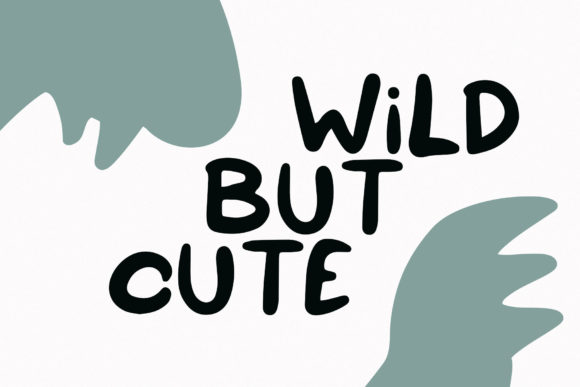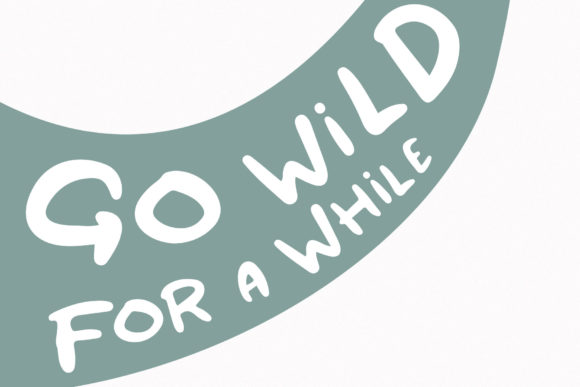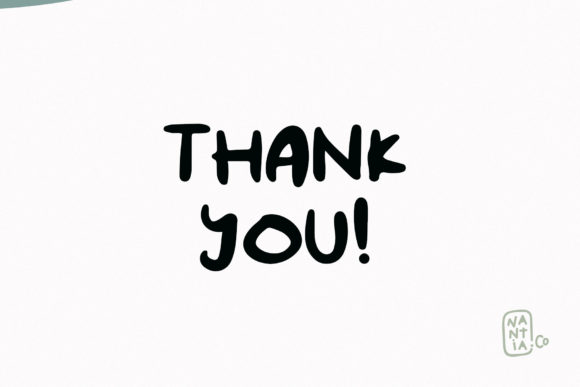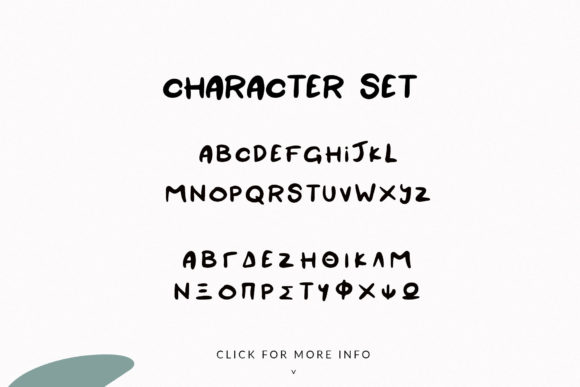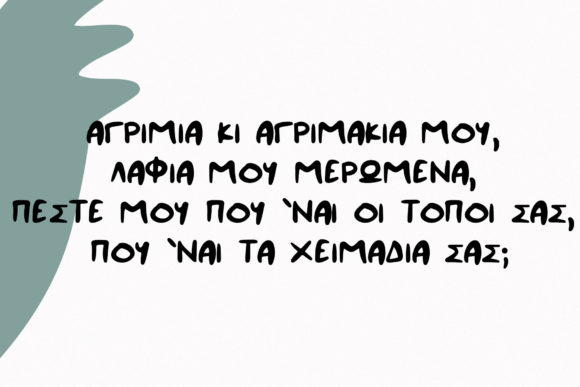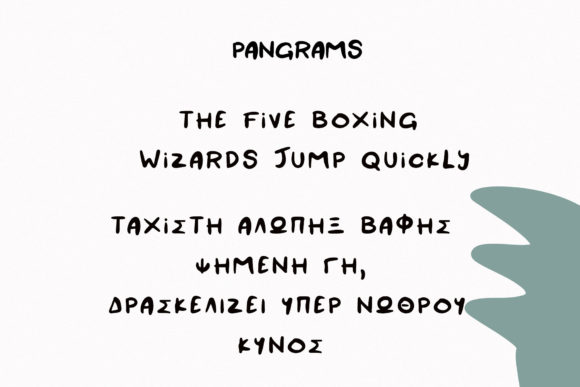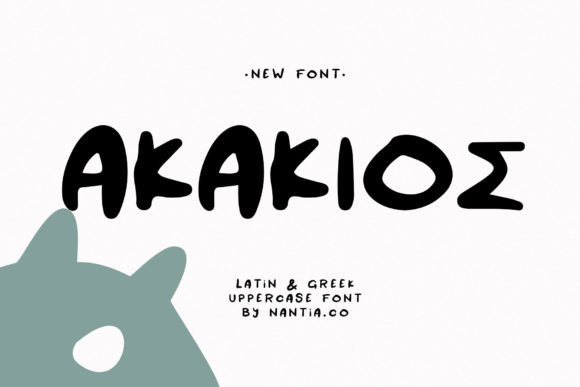
Introducing Akakio Font: The Perfect Blend of Power and Cuteness
Are you tired of using the same old fonts in your design projects? Look no further! Akakio Font is here to revolutionize the way you approach typography. This handwritten font is a game-changer, offering a unique blend of power and cuteness that will instantly elevate your designs to the next level. In this article, we’ll dive into the world of Akakio Font, exploring its features, benefits, and uses, as well as provide tips and inspiration for designers and crafters.
What is Akakio Font?
Akakio Font is a modern, handwritten font that exudes a sense of coolness and sophistication. Its unique charm lies in its ability to balance power and cuteness, making it an ideal choice for designers and crafters looking to add a touch of personality to their work. Whether you’re creating a logo, branding materials, or social media graphics, Akakio Font is the perfect tool to make your designs stand out.
Key Features of Akakio Font
• Handwritten style: Akakio Font boasts a beautiful, handwritten style that adds a personal touch to any design project.
• Modern and cool vibe: This font is designed to give your designs a modern and cool edge, making it perfect for brands and businesses looking to appeal to a younger audience.
• Versatile: Akakio Font is incredibly versatile, making it suitable for a wide range of design projects, from logos and branding materials to social media graphics and more.
• Easily readable: Despite its unique style, Akakio Font is easily readable, ensuring that your message is conveyed clearly and effectively.
Benefits of Using Akakio Font
So, why should you choose Akakio Font for your design projects? Here are just a few benefits of using this amazing font:
• Stand out from the crowd: With Akakio Font, you can create designs that truly stand out from the crowd. Its unique style and modern vibe will set your brand or business apart from the competition.
• Emotional connection: Handwritten fonts like Akakio Font have the power to create an emotional connection with your audience. By using this font, you can add a personal touch to your designs and build a stronger relationship with your customers.
• Flexibility: Akakio Font is incredibly flexible, making it suitable for a wide range of design projects and applications.
Tips for Using Akakio Font
Now that you know more about Akakio Font, here are some tips for using it effectively in your design projects:
• Pair with bold colors: Akakio Font looks amazing when paired with bold, bright colors. Experiment with different color combinations to find the perfect match for your design.
• Use in combination with other fonts: Akakio Font can be used in combination with other fonts to create a unique and visually appealing design. Try pairing it with a clean, sans-serif font for a striking contrast.
• Experiment with different sizes: Akakio Font looks great in a variety of sizes, from large headings to smaller body text. Experiment with different sizes to find the perfect fit for your design.
Still not sure how to use Akakio Font in your design projects? Here are some inspiration and ideas to get you started:
• Branding and logos: Akakio Font is perfect for creating unique and memorable logos and branding materials.
• Social media graphics: Use Akakio Font to create eye-catching social media graphics that will help your brand or business stand out.
• Invitations and cards: Akakio Font is a great choice for creating invitations, greeting cards, and other paper crafts.
Author nantia
Akakio Font is a powerful, yet cute handwritten font that is sure to revolutionize the way you approach typography. With its unique blend of power and cuteness, this font is perfect for designers and crafters looking to add a modern and cool vibe to their design projects. Whether you’re creating logos, branding materials, or social media graphics, Akakio Font is the perfect tool to make your designs stand out. So why wait? Give Akakio Font a try today and see the difference it can make!